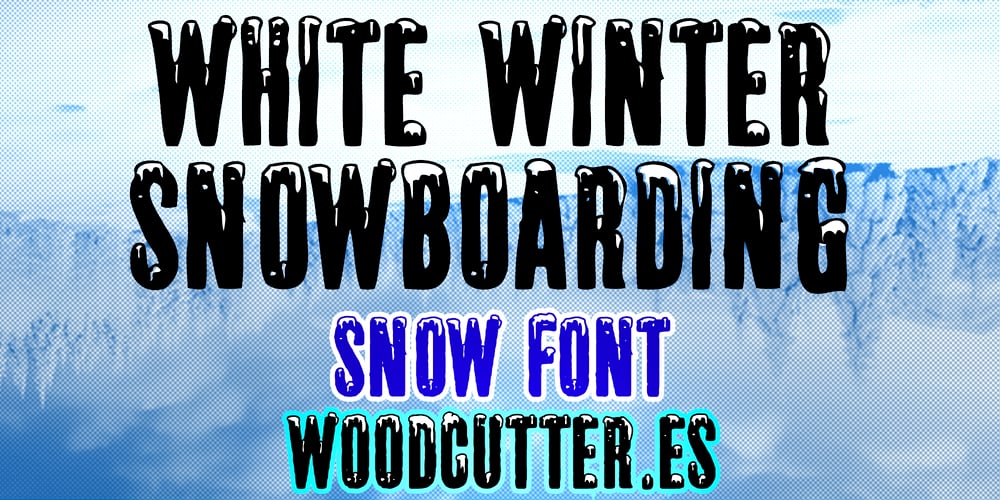
White Winter Snowboarding Font Family was designed by Jordi Manero and published by Woodcutter. White Winter Snowboarding contains 1 styles and family package options. “White Winter Snowboarding” is an uppercase typeface that captures the essence of winter with a design adorned by fallen snow from the sky. Each letter appears to be covered with a layer of fresh snow, adding texture and a touch of realism. Perfect for winter-themed projects, extreme sports, or snow-related branding, this font conveys freshness, dynamism, and a visual connection to wintry landscapes. Its unique style makes it ideal for posters, advertisements, or designs aiming to reflect the thrill and beauty of snow sports and the winter season overall.”